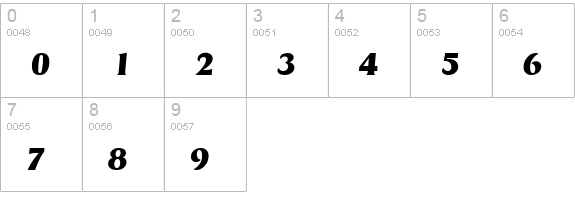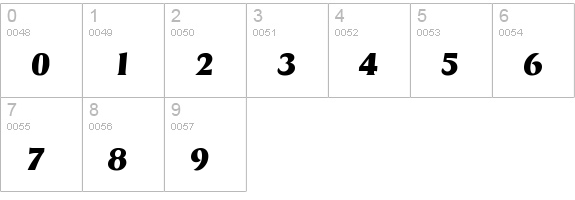
DynamicItal Regular Font Details
DynamicItal Regular is the standard, neutral variant in the DynamicItal typeface family \xE2\x80\x94 well suited to general body text, paragraphs, and standard typographic work.
DynamicItal Regular is a versatile and modern font that adds a touch of elegance to any design project. With its sleek and dynamic italics, this font exudes a sense of movement and sophistication. Perfect for branding, headlines, and editorial designs, DynamicItal Regular strikes the perfect balance between professionalism and creativity. This font is available for free download at FontsMarket.com, making it easily accessible for designers and creatives looking to elevate their projects with a unique typeface. Don't miss out on the opportunity to add DynamicItal Regular to your font collection and unleash its dynamic energy in your next design endeavor.